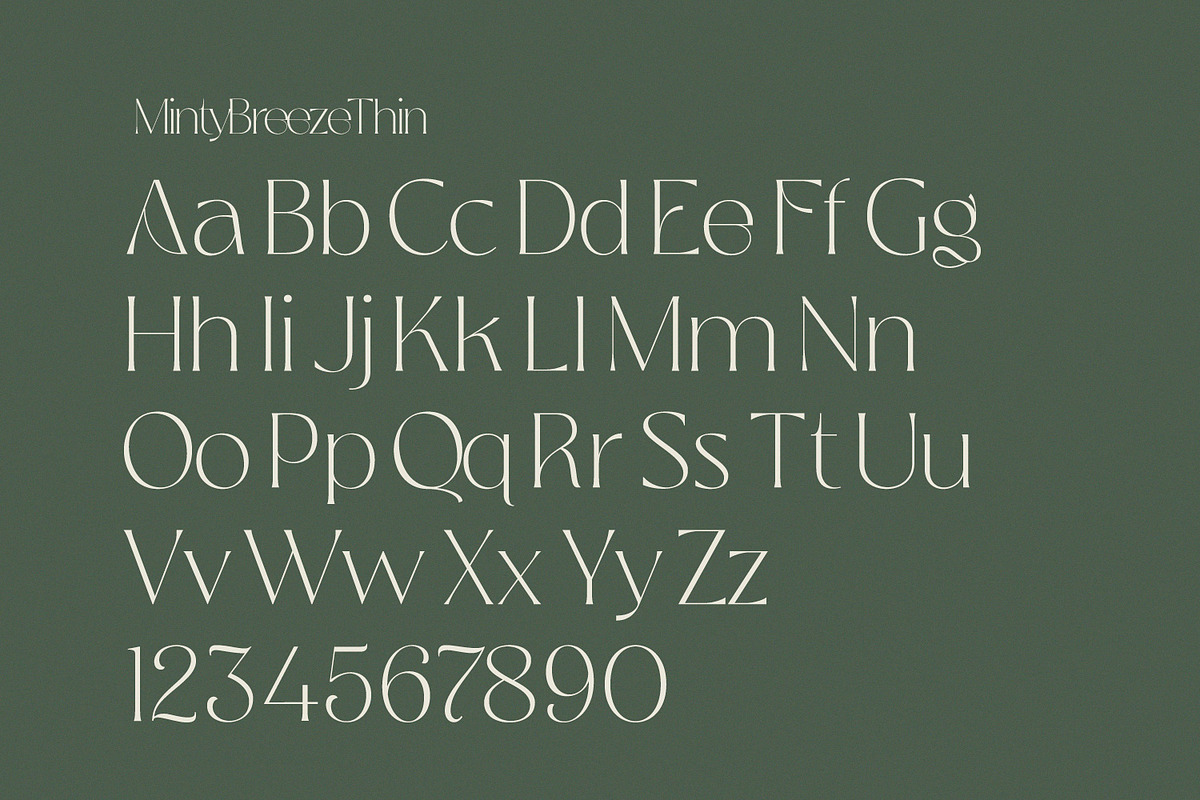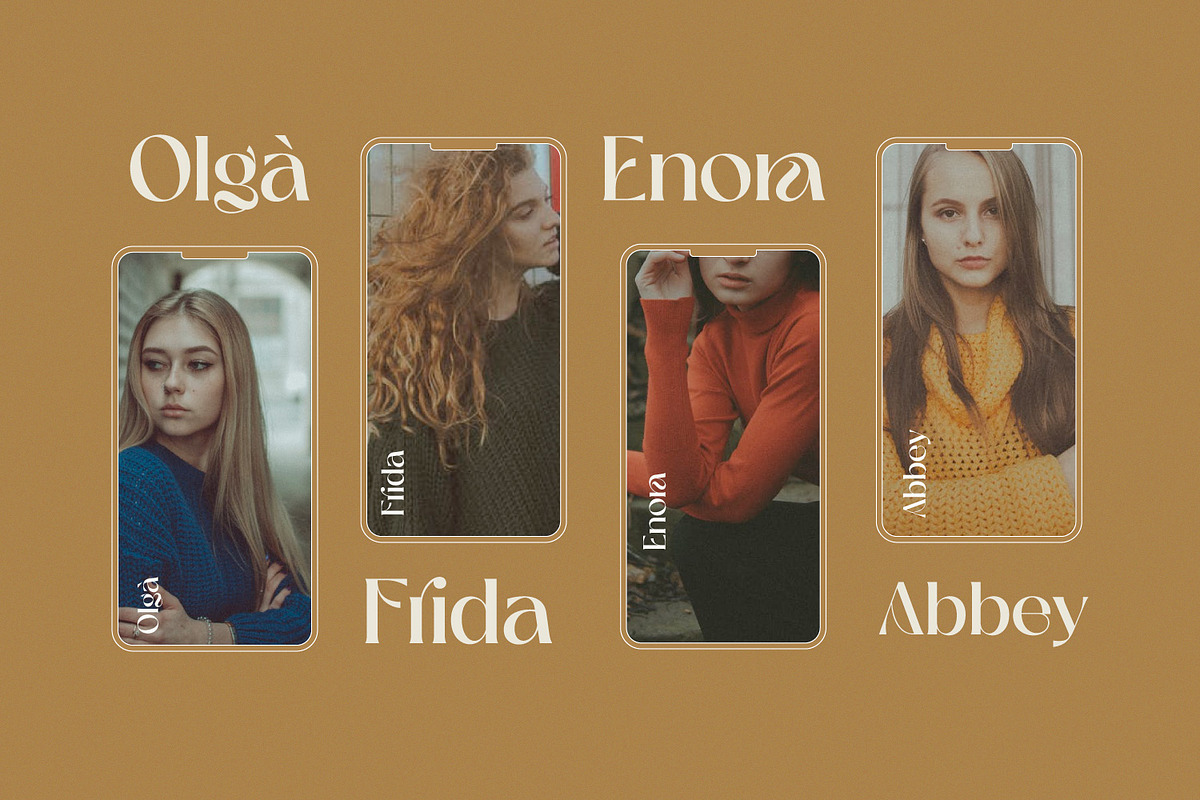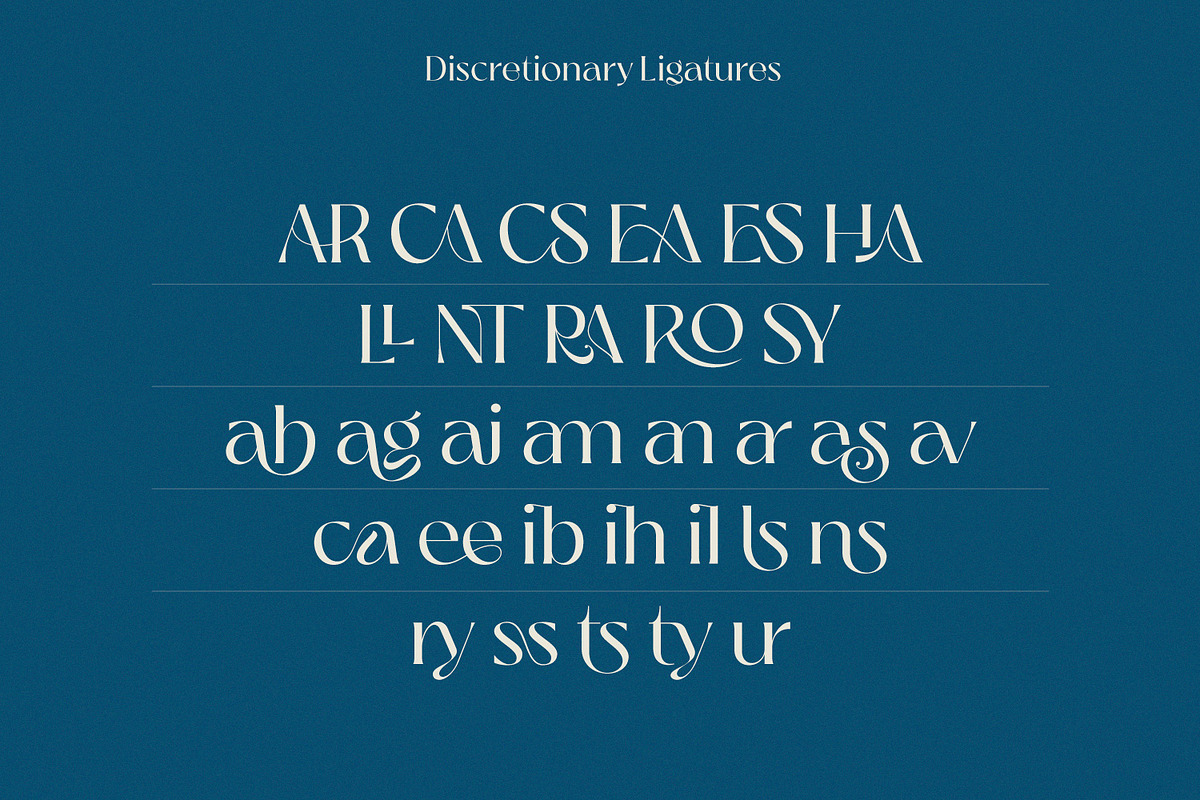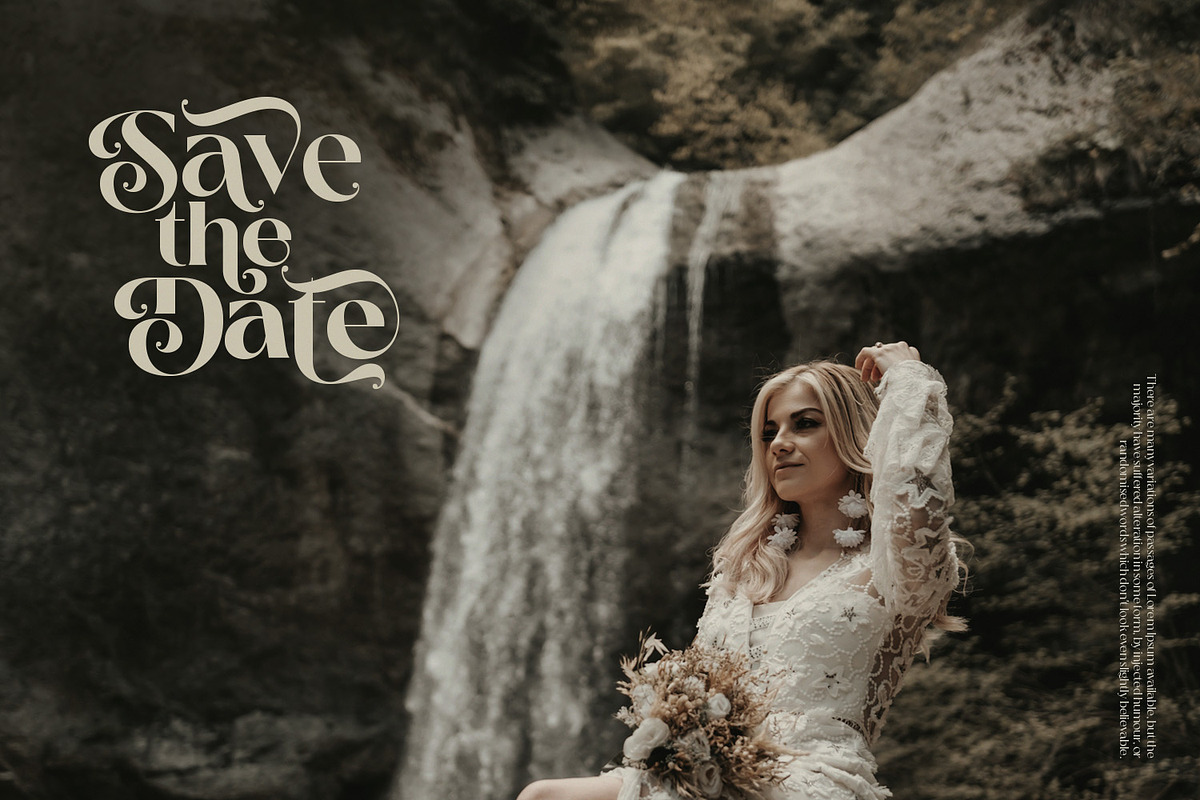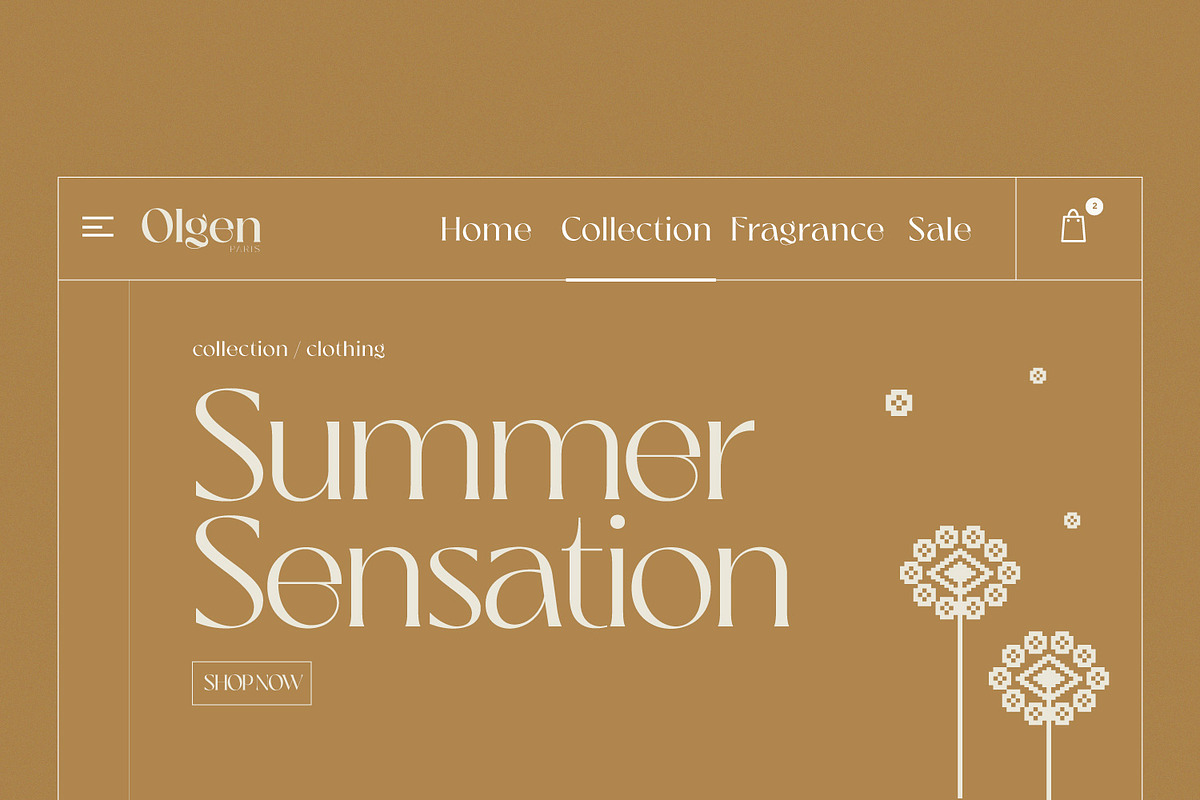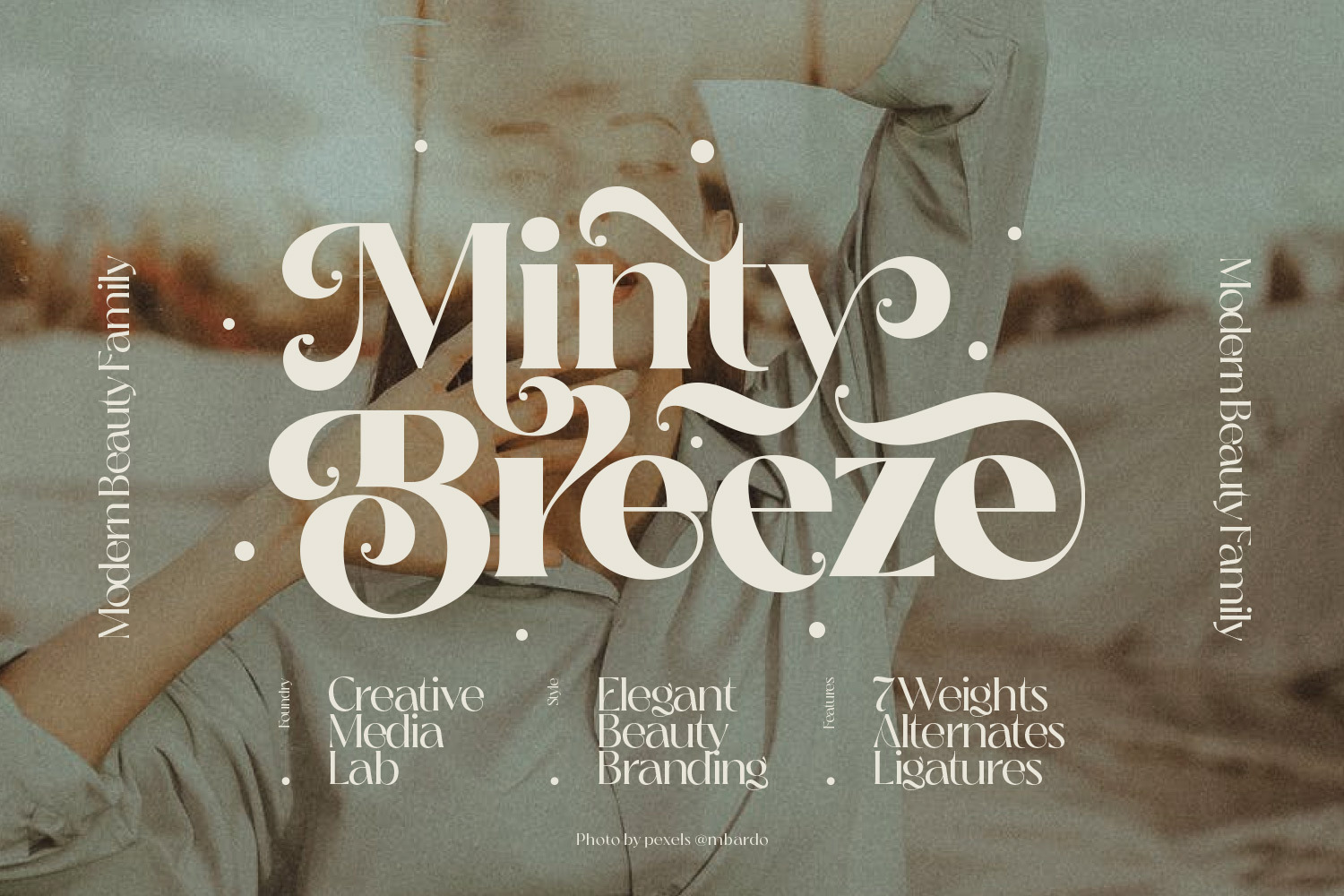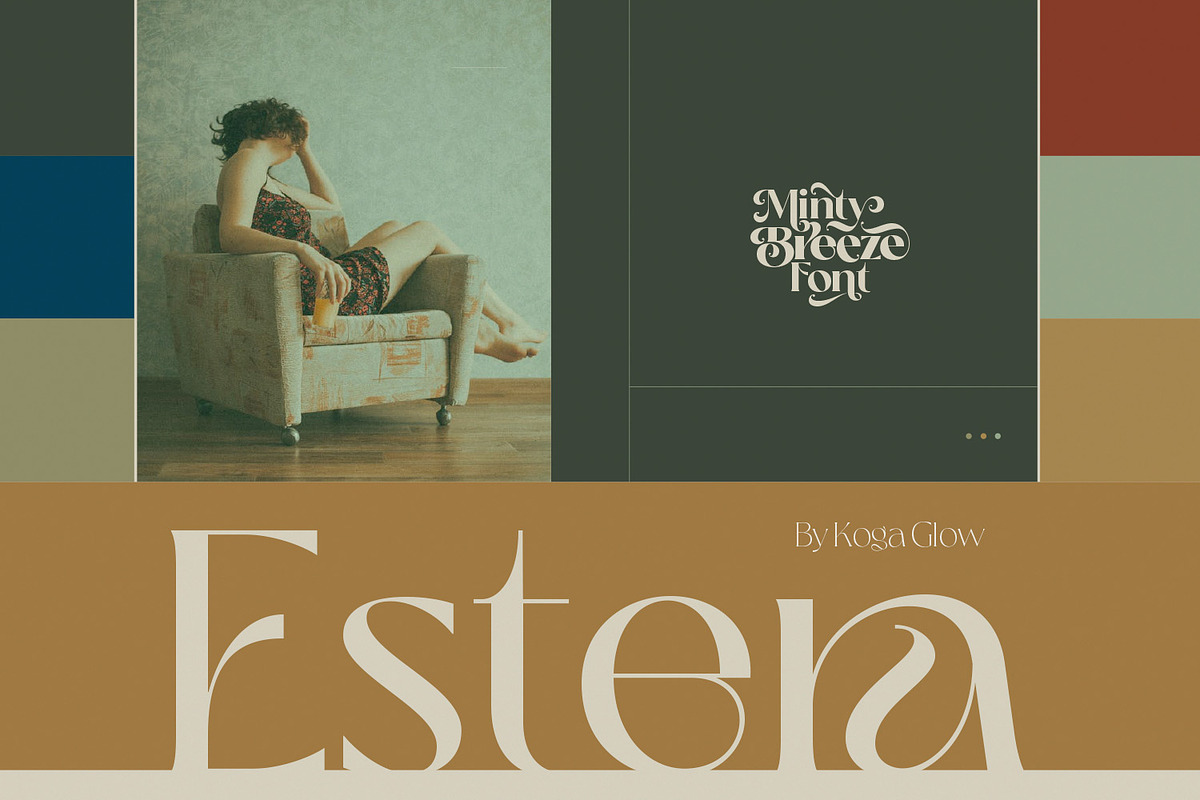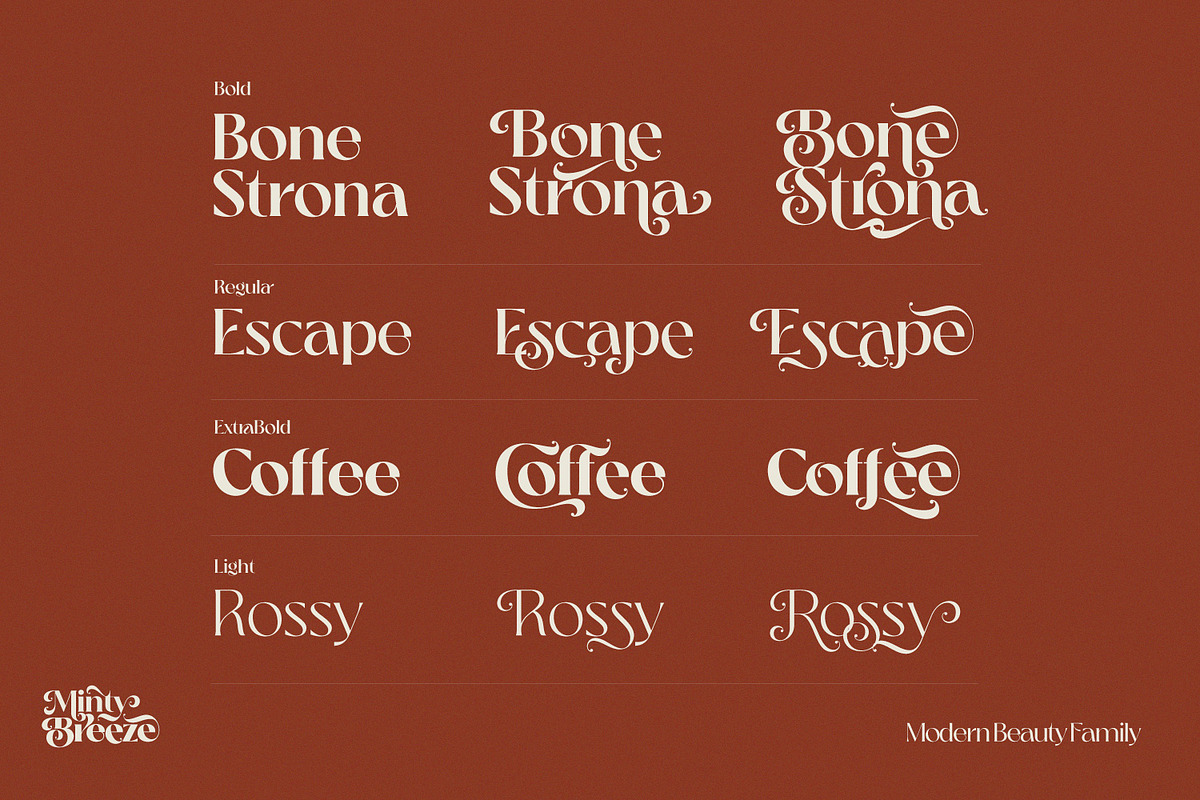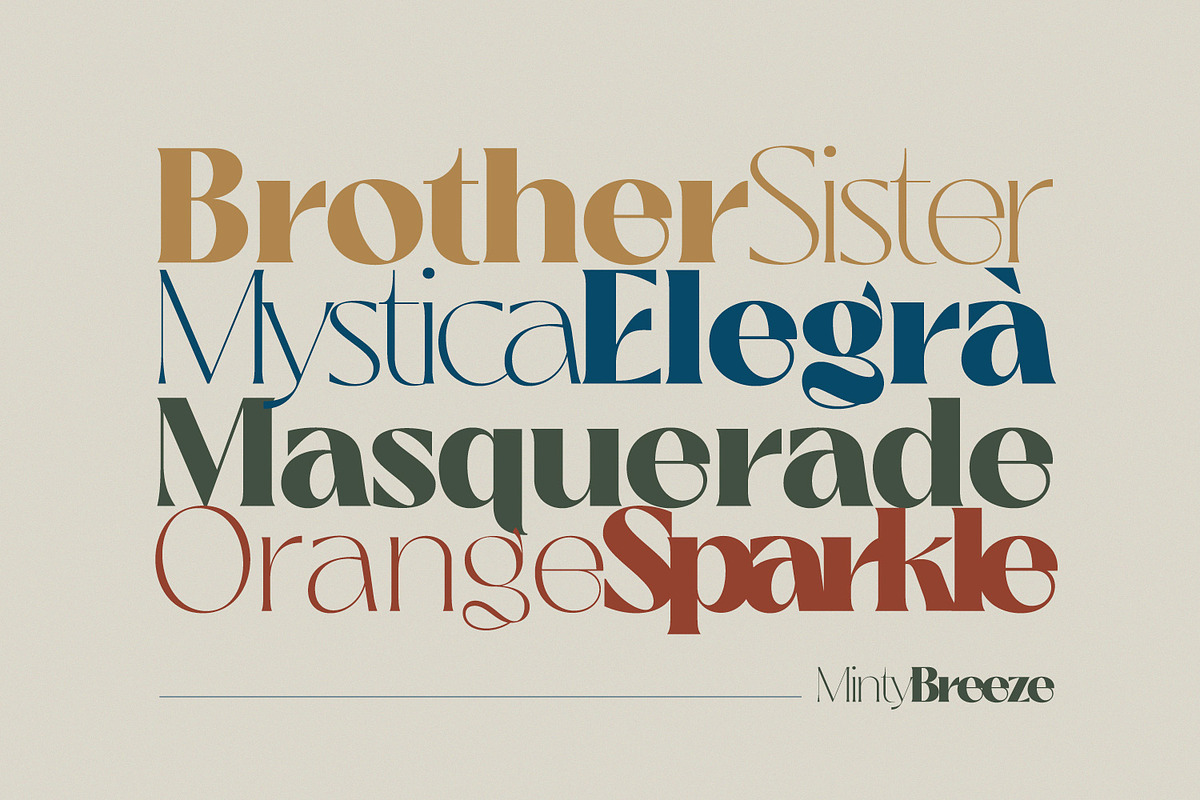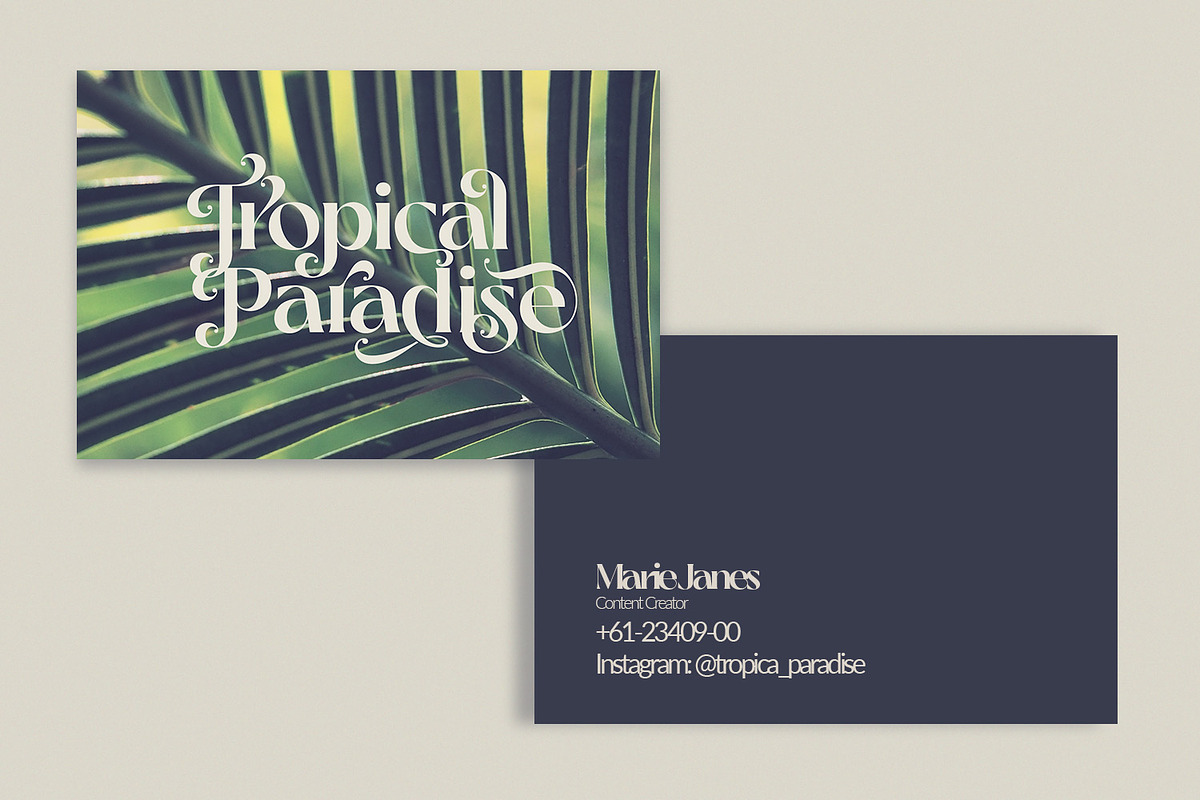
Minty Breeze - Modern Retro Font
Minty Breeze is a modern serif with lots of decorative alternatives that allows you to design expressive logos or titles for all types of your projects. The vintage yet elegant style combined with modern typographic art is the main attraction of this font, from Branding to fashion-related concepts. Thanks to its beautiful character.
The fonts come in 7 styles, from thin to black and variable formats.